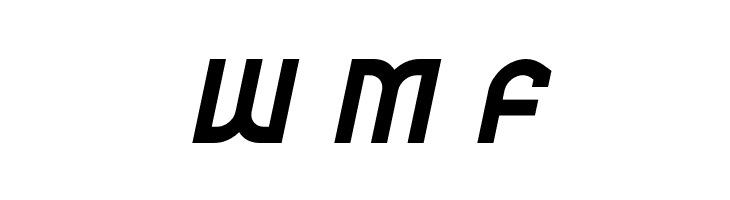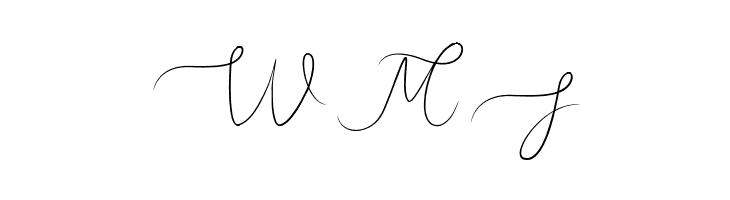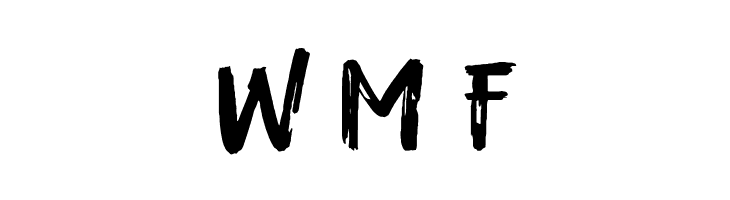
Handmade Notes Font
Font by Erlina Graphic
A handwritten, casual script font suitable for informal and playful designs.
Rayllon DEMO Italic Font
Font by
Sayfont
A bold, italic, sans-serif font with a modern style and wide character spacing.
Bmauroart _ Thin Letter Regular Font
Font by B Mauro
A whimsical, handwritten font with uneven, playful characters.
Cardstock Font
A bold, handwritten script font with a lively, energetic style.
Besttie Font
Font by Integritype Studio
A cursive handwritten script font with elegant, flowing strokes.
Sansburg Signature Font
Font by Andrimada Creative
A stylish, handwritten cursive font suitable for personal and creative projects.
Cariollets Free Regular Font
Font by Maulana Creative
A handwritten cursive script font with a casual, elegant style.
Cinestory Font
Font by Mariyana
A stylish, cursive handwritten font with elegant, flowing characters.
Fastina Ootsine - Personal Use Font
Font by Letterafa Studio
A handwritten, casual script font with a playful and informal style.
Gumbaldpfont Regular Font
Font by Gumbal DP
A casual, handwritten font with a whimsical and informal style.
Betsy Gilbertos Font
Font by Letterena Studios
A casual, handwritten cursive script font with flowing, varied strokes.
HegoraFREE Font
Font by InspiraType
A handwritten, casual script font with a playful and informal appearance.
NCL Bestopia Font
Font by Enxyclo Studio
A handwritten script font with a casual, flowing style.
Meander Free Trial Font
Font by Typefactoryco